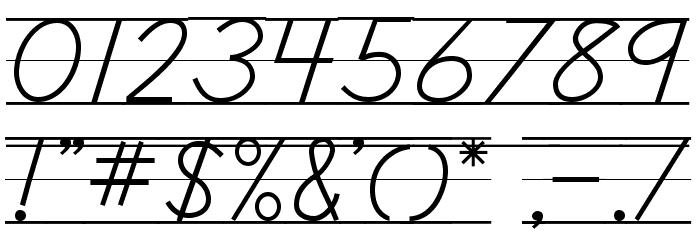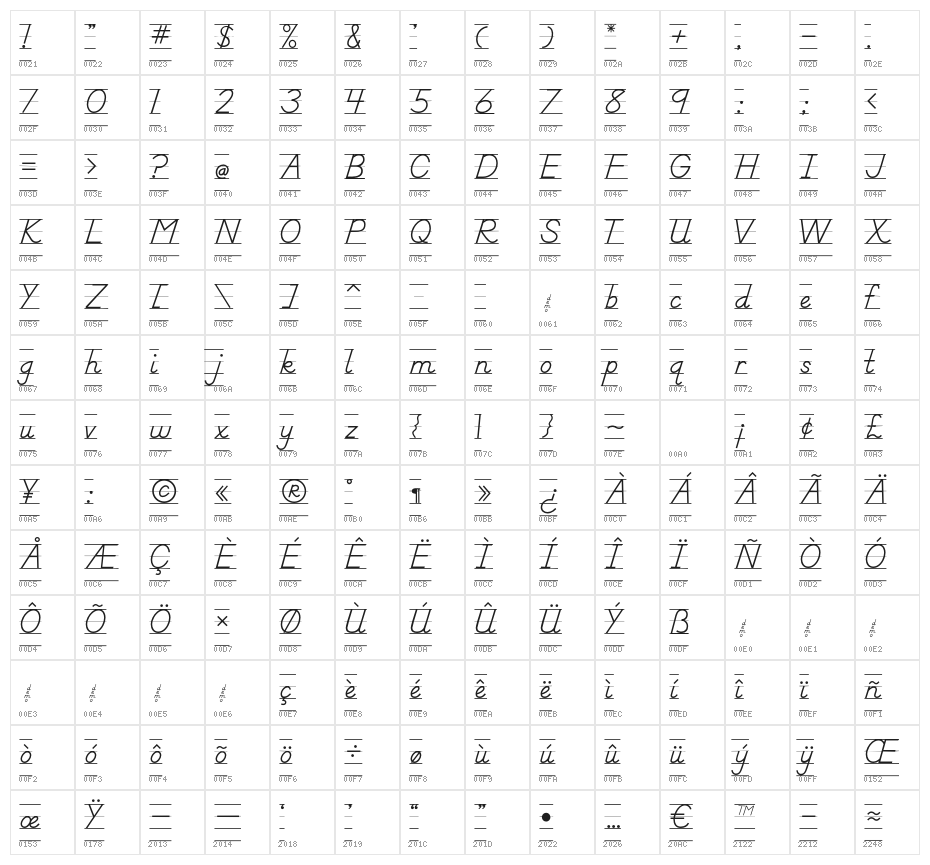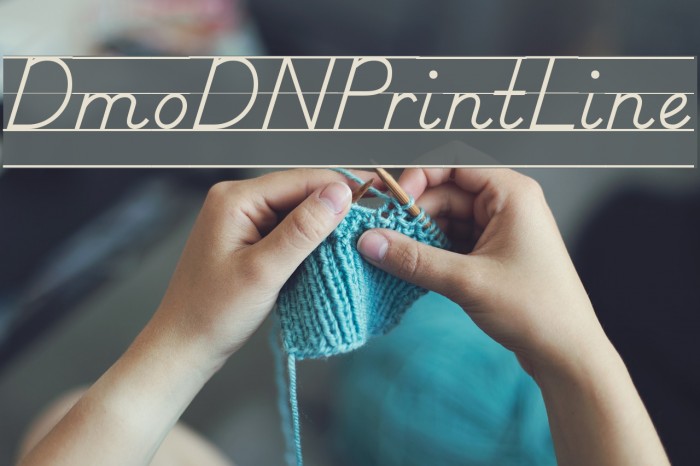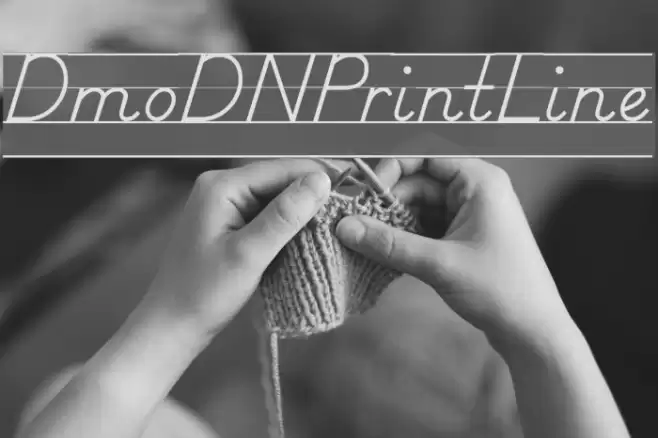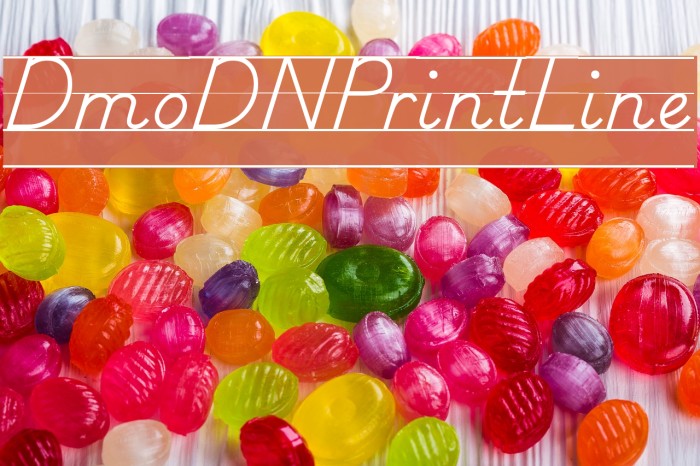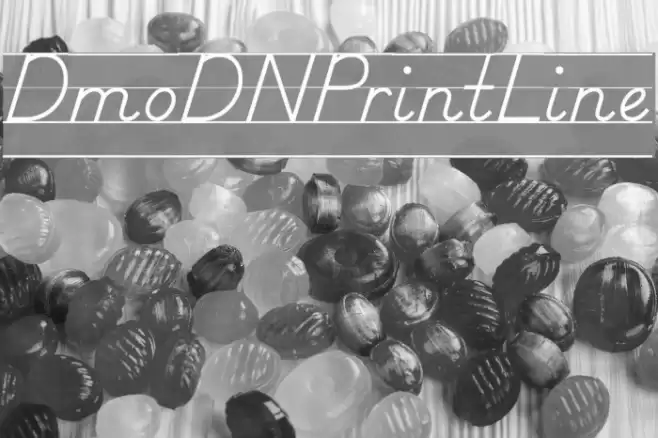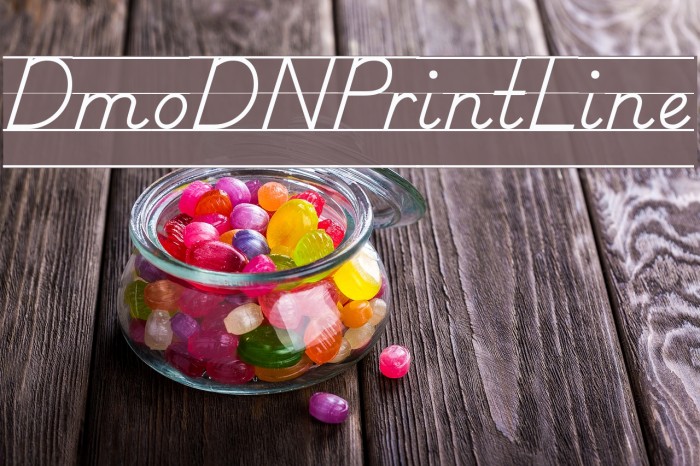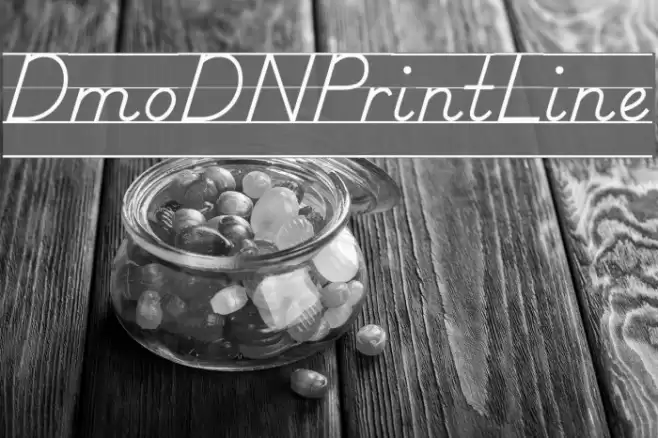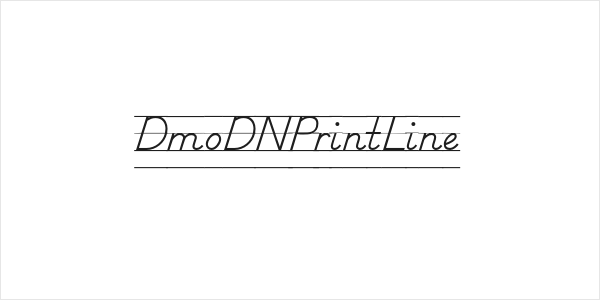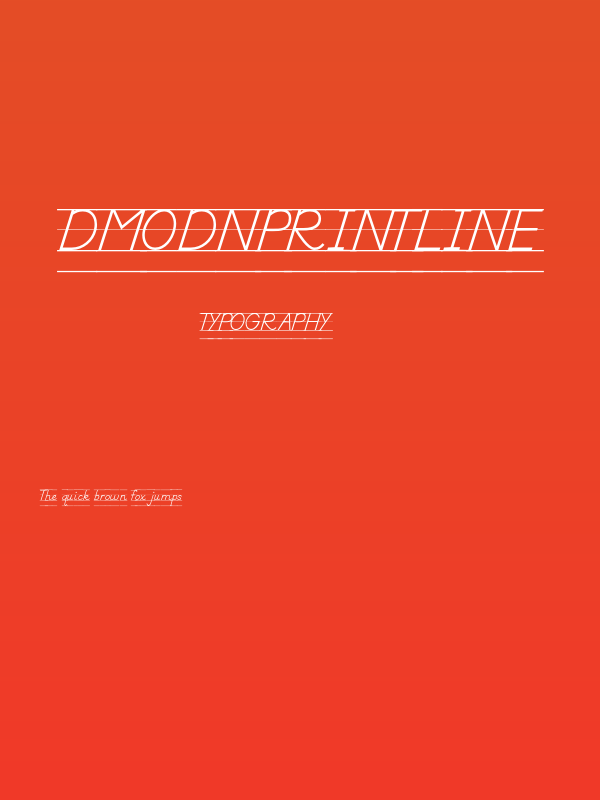
DmoDNPrintLine Font
DmoDNPrintLine Description
This font features a classic cursive style with elegant, flowing lines that mimic traditional handwriting. The uppercase letters are slightly slanted, giving a sense of movement and grace. The lowercase letters maintain a consistent baseline with smooth, rounded curves, enhancing readability while preserving a handwritten feel. Numbers and special characters are designed to complement the alphabet, maintaining the same slant and fluidity. The overall design is both sophisticated and approachable, making it suitable for a variety of applications.
| Use Case | Headlines, Invitations, Personal Correspondence |
| Proposed Projects | Ideal for wedding invitations, personal letters, branding materials, and any project requiring a touch of elegance and personal flair. |